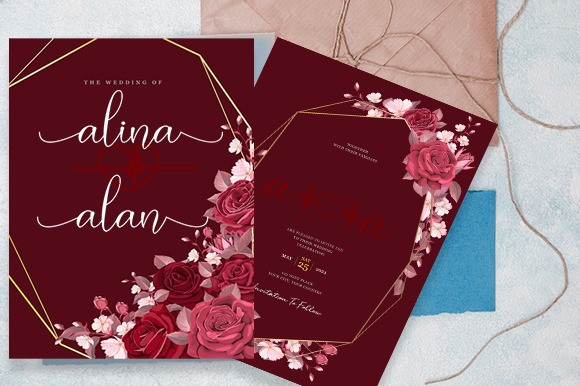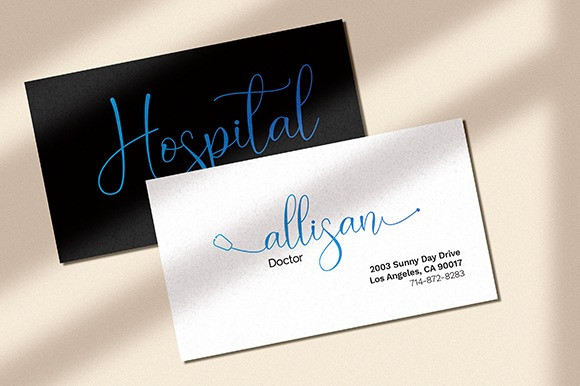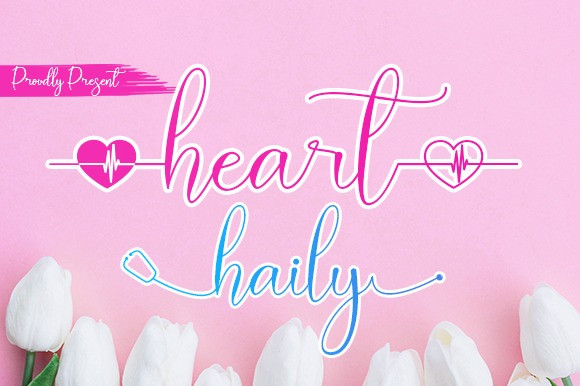
Heart Haily Font
Heart Haily Script Font is a beautiful light handwritten font with a unique feel and a stunning impact. It will add a luxury spark to any design project that you wish to create!